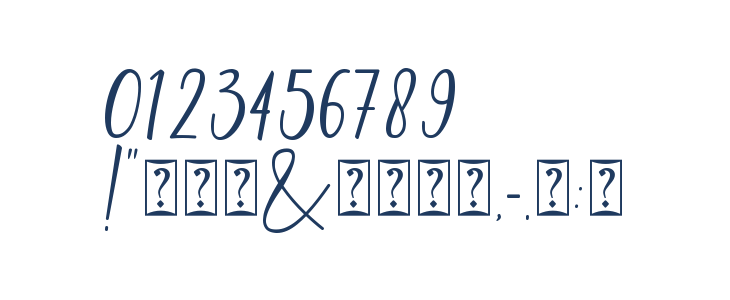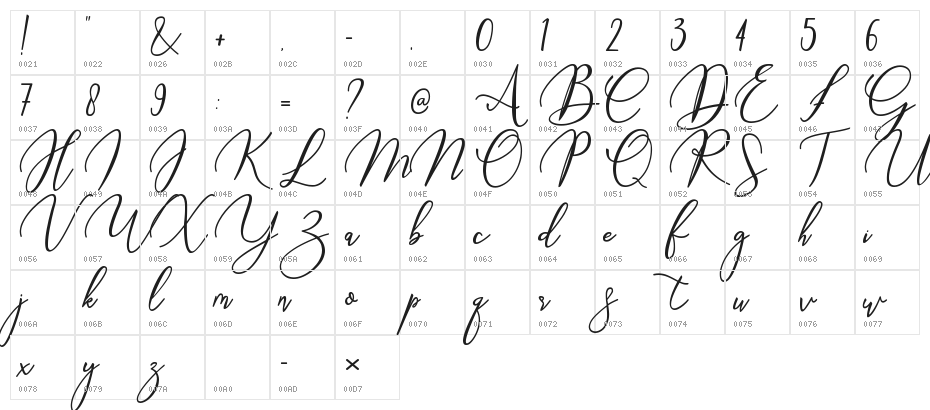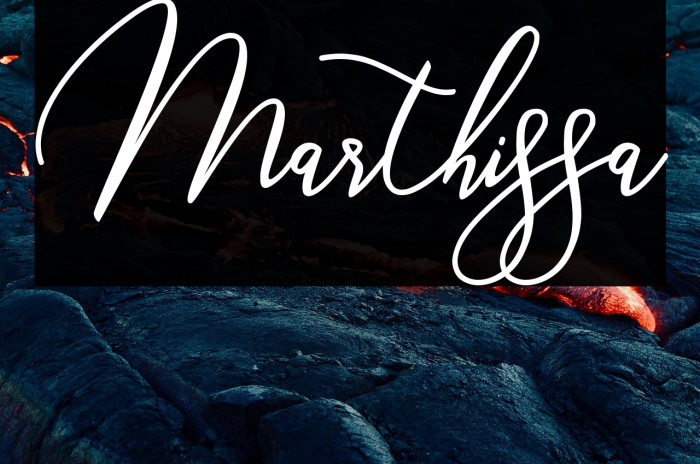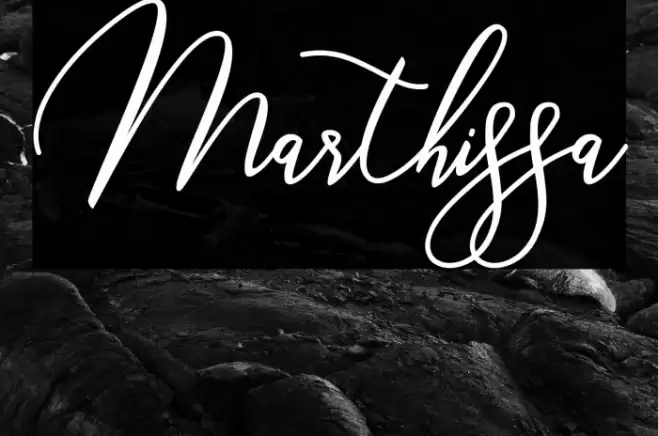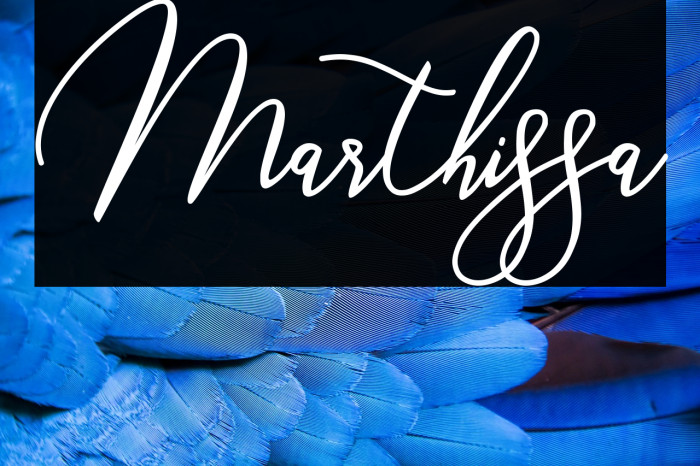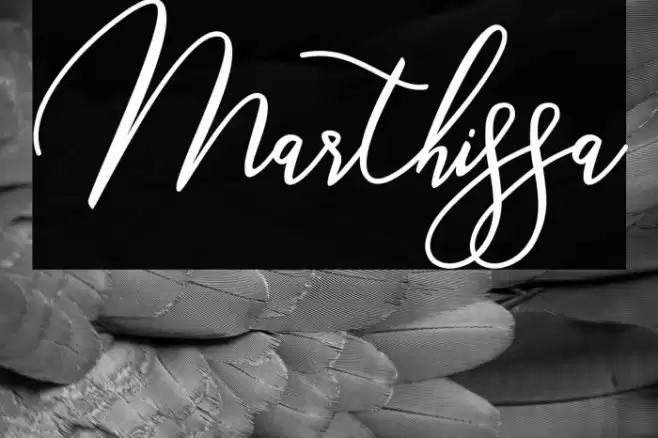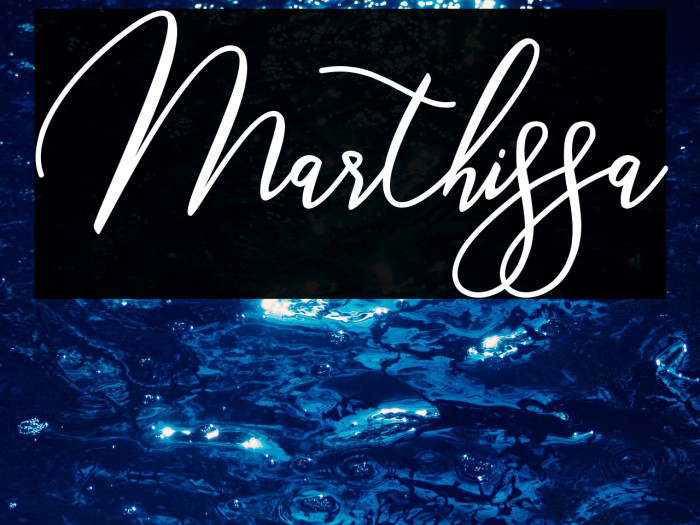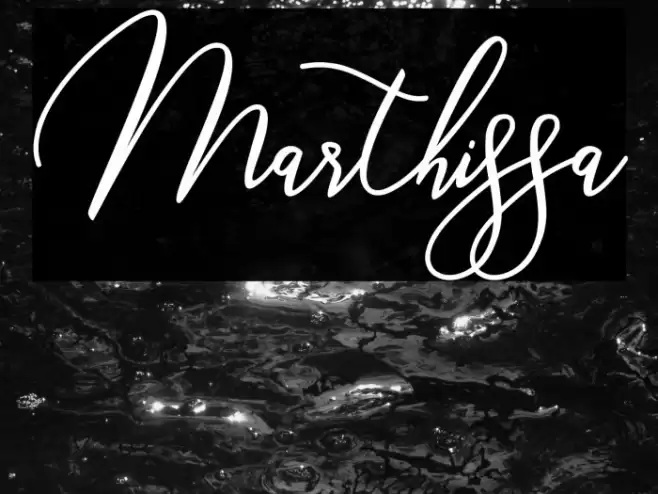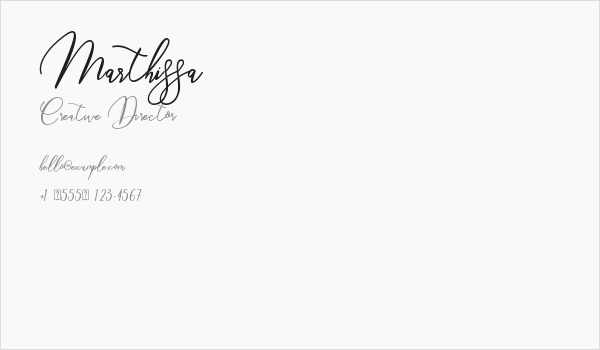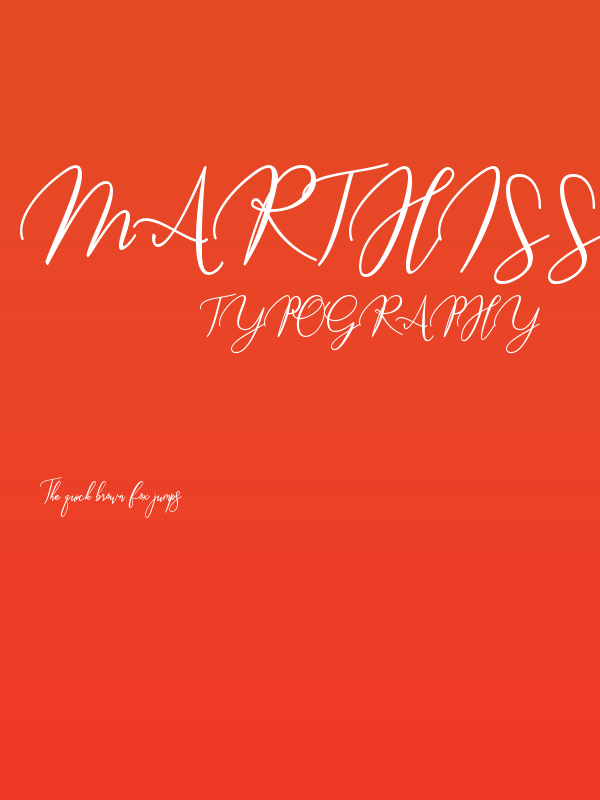
Marthissa Font
Marthissa Description
This font features an elegant and flowing script style, characterized by its cursive, handwritten appearance. The uppercase letters are intricately connected, creating a sense of fluidity and grace. The lowercase letters maintain a consistent style, with some characters extending below the baseline, adding to the dynamic look. The numerals are tall and slender, complementing the overall aesthetic. Special characters are designed with the same attention to detail, ensuring a cohesive look across all glyphs. This font exudes sophistication and is perfect for projects that require a touch of elegance.
| Proposed Projects | Ideal for wedding invitations, elegant branding, personal stationery, and upscale packaging. |